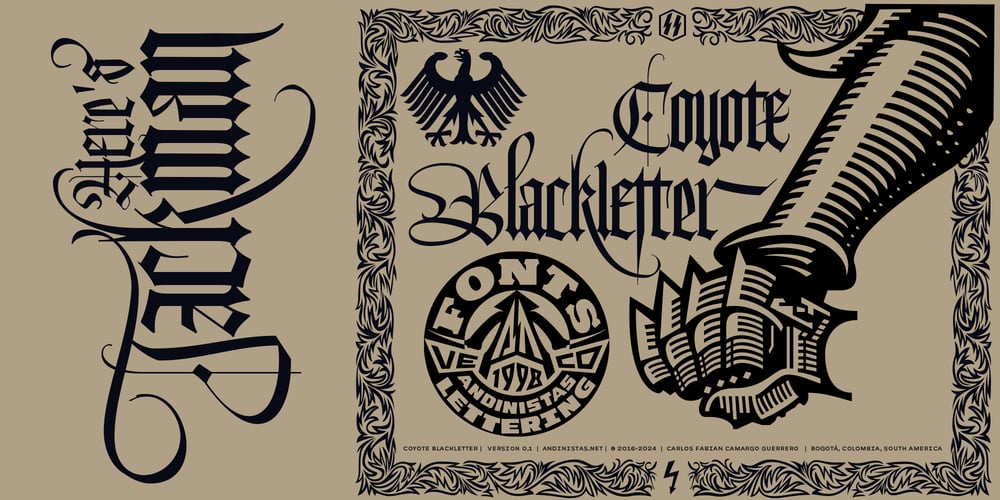
Coyote Blackletter
Coyote Blackletter font
Coyote Blackletter Font Family was designed by Carlos Fabián Camargo Guerrero and published by Andinistas. Coyote Blackletter contains 1 styles and family package options. #CoyoteBlackletter is a Blackletter typeface designed by #CarlosFabianCG at #AndinistasFonts between 2016 and 2024. This impressive typographic diamond boasts 700 glyphs and multiple variants in a single OpenType file. Its concept was developed by studying classic film logos and Heavy Metal and Thrash Metal logos, along with the lead type Wilhelm Klingspor Gotisch, created by R. Koch between 1919 and 1926. Subsequently, various letterings with flourishes were designed by hand, inspired by old German posters, producing ideas with medieval influences from calligraphers like #RudolfKoch, #WardDunham, and #HermannZapf.★ Long story:★My fascination with medieval films sparked my curiosity about the fonts used by bands such as Ronnie James Dio, Ozzy Osbourne, Testament, and Night Demon. These logos not only inspired me but also expanded my experimental typographic freedom by evoking images of Heavy Metal, Thrash Metal, and demonic and vampiric concepts, providing me with abundant typographic material. The aesthetics of these bands’ covers not only pay homage to medieval mysticism but also represent an ideal starting point for designing the expressiveness of Coyote Blackletter. For instance, the edge of a medieval dagger can resemble the end of Coyote Blackletter’s strokes, as its essence is based on a Gothic typeface created with a square-tipped calligraphic tool, and its voids and fills follow visual logic consistent with imaginaries linked to medieval darkness.★This combination offered me various options and allowed me to discover ancient references, characterized by voids and fills typical of Gothic fonts. Coyote Blackletter was designed with majestic uppercase and lowercase letters with long or short strokes, ascenders and descenders, fused with typefaces I discovered in German publications from 1935 and 1945. Accordingly, I conducted analyses and took notes on paper using a pencil, ink, and flat-tipped tools, focusing on making calligraphic copies first, and then refining them. All these efforts were transferred to Bézier glyphs in a process of repetition and correction. Today, these stages are reflected in ordered and systematic sketches, as if they had a planned origin to achieve a precise result. Between hand drawing, Bézier work, and OpenType programming, multiple calligraphic and lettering syntheses resulted.★Bonus Track: Coyote Black Letter includes 15 unique pictograms: Gargoyle silhouette: Represents the grotesque, the monstrous, and the guardian. In this context, it could symbolize dark or mysterious forces. Arrow-shaped lightning bolt: Suggests speed, power, and direction. It could represent a sudden enlightenment, a revelation, or a stroke of luck. Double lightning bolt inside a container: A double lightning bolt can symbolize duality or conflict. The container could represent the mind or soul. Wolf with a snake’s tongue inside a star: The wolf is a symbol of loyalty, intelligence, and ferocity. The snake represents wisdom and temptation. The star could symbolize divinity or destiny. Eagle with geometric wings: The eagle is a symbol of power, freedom, and vision. The geometric wings could indicate a rational or intellectual approach. Eagle with curved wings: Similar to the previous one, but the curved wings could suggest a more emotional or spiritual nature. Aggressive eagle with open wings: RepresentBlackletters Classic Font Tattoo Font Calligraphy Font Modern Blackletter Classic Blackletter Fraktur Lettering Gothic Font Blackmetal Metal Typeface Font Rochart Tattoo Lettering Destroyers Destroyeds a powerful and dominant force. It could symbolize a struggle or a challenge. Calligraphic cross in the style of Rudolf Koch: The cross is a universal symbol of faith and sacrifice. Rudolf Koch’s calligraphic style gives it an artistic and sophisticated touch. Iron fist: Symbolizes strength, power, and determination. Lettering of the word “Illusion”, corrected by my teacher #SantiagoPol: The word “illusion” suggests something deceptive or fanciful. The correction by the teacher implies a search for truth or reality. Calligraphic lettering designed by Rudolf Koch: Similar to the pictogram of the cross, but focused on the written word. Medieval borders for the left, right, top, and bottom margins: Medieval borders are decorative embellishments that frame an image or text. In this case, they delimit the space of the pictograms and give them an antique appearance.